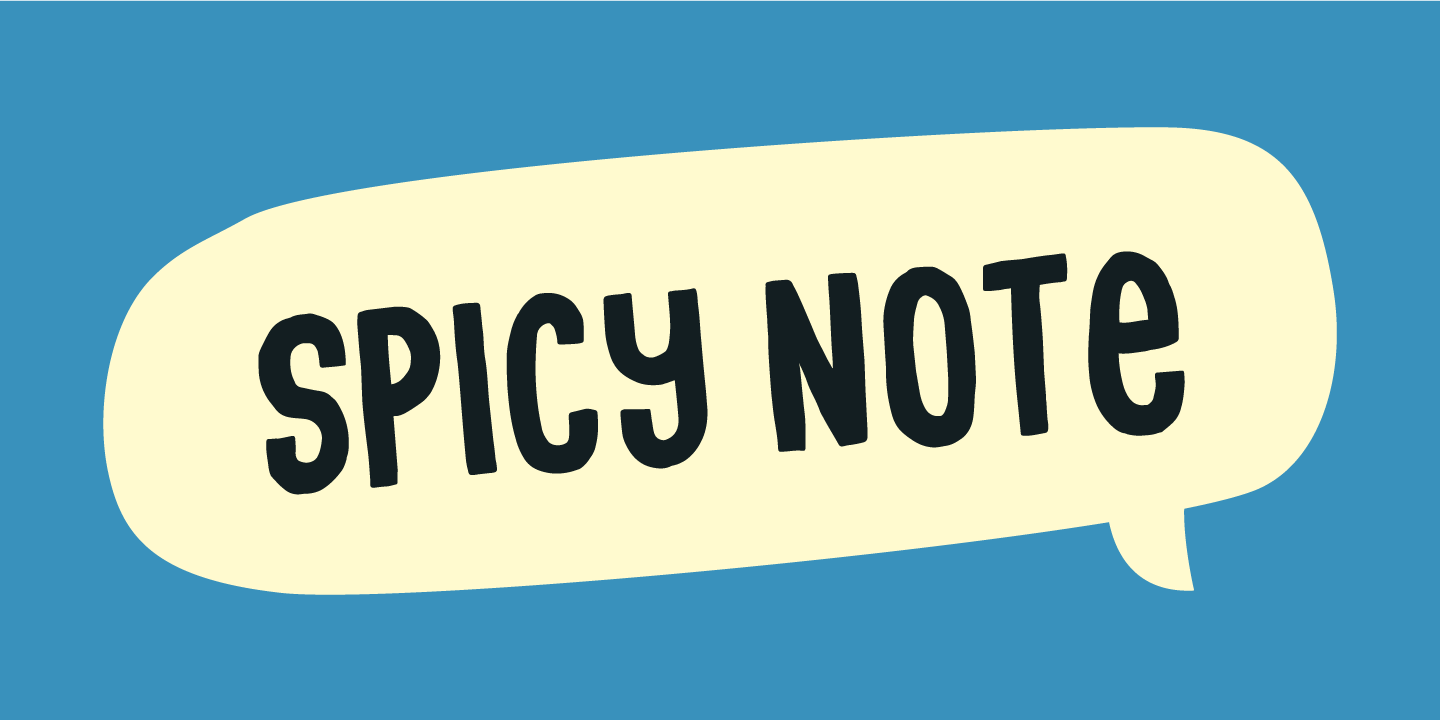
Spicy Note Font is ideal for spicy food restaurant branding, hot sauce packaging, ethnic cuisine menus, food truck graphics, cooking show titles, recipe blog headers, culinary event promotions, food festival materials, chili pepper product labels, and vibrant kitchen signage. This zesty typeface excels in applications where culinary excitement and flavorful personality need to be communicated with appetizing appeal and mouth-watering visual energy that captures the essence of bold flavors.
What makes Spicy Note Font exciting is its remarkable ability to convey the sizzling heat and bold flavors of spicy cuisine through its dynamic letterforms that seem to dance with culinary energy and fiery passion. The font embodies the spirit of adventurous cooking and bold taste experiences with its lively character construction and appetizing proportions that suggest the exciting kick of perfectly spiced dishes. Its carefully crafted details and flavorful personality create an atmosphere of culinary adventure that resonates with food lovers seeking authentic spicy experiences and bold flavor profiles.
The Spicy Note Font family typically includes Regular and Bold weights, often featuring enhanced dynamic characteristics that amplify the spicy aesthetic. Some versions offer decorative elements inspired by chili peppers, flame motifs, and culinary symbols that enhance the food-themed appeal. The family may also include condensed variants for menu applications and display cuts optimized for maximum appetizing impact in restaurant and food service environments.
Whether you're creating spicy food brands, culinary marketing materials, or flavor-focused restaurant designs, Spicy Note Font Free Download delivers the perfect blend of heat and appeal your food-focused projects deserve. Its spicy character and culinary styling make it an essential choice for restaurants, food brands, and culinary designers working in ethnic cuisine, hot sauce products, and spicy food sectors where authentic flavor personality and appetizing visual appeal are fundamental to attracting adventurous food enthusiasts.